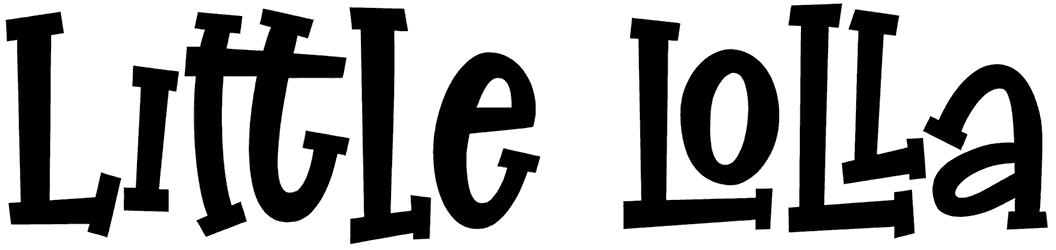
Little Lolla Font
Do you want to illustrate your future layout with a fun and whimsical form? Don’t lose this playful cartoon font with its cute adorned serif letters. Even if Little Lolla doesn’t cover most punctuation marks, it can be a pleasant pickup for lots of items such as invitations, apparel, comics, and so forth.